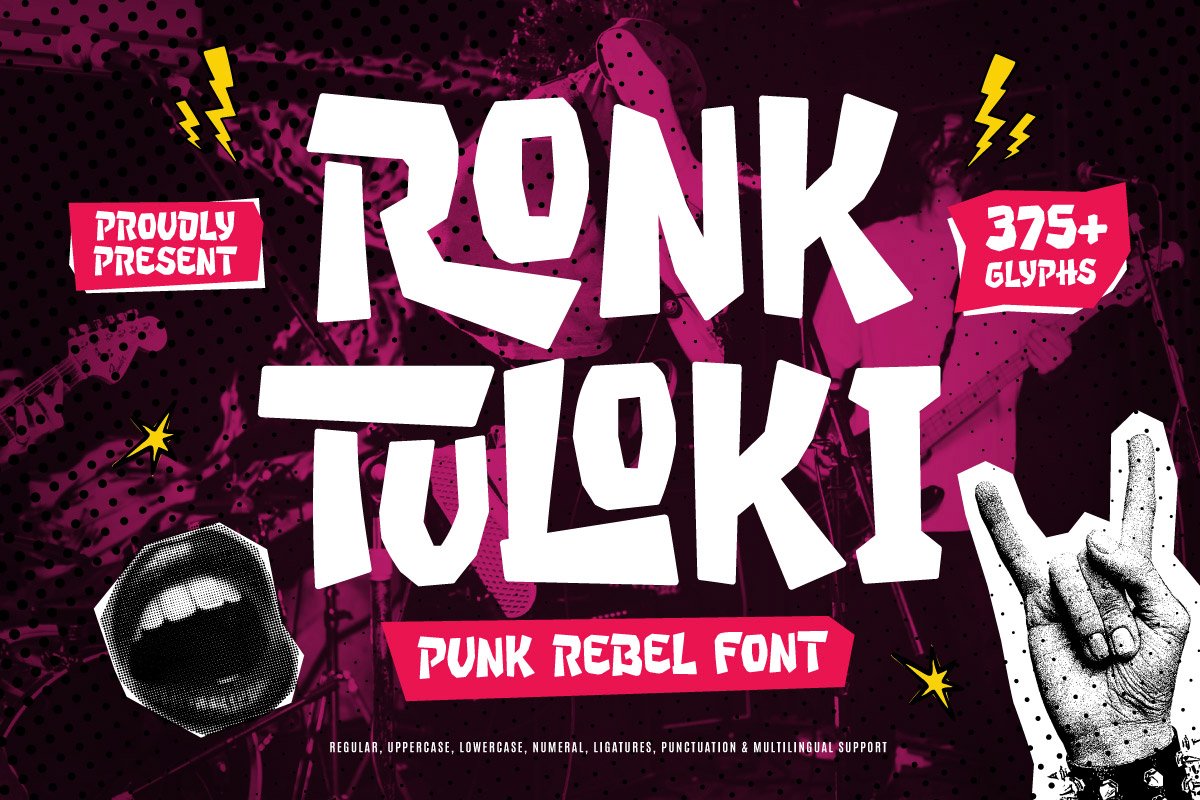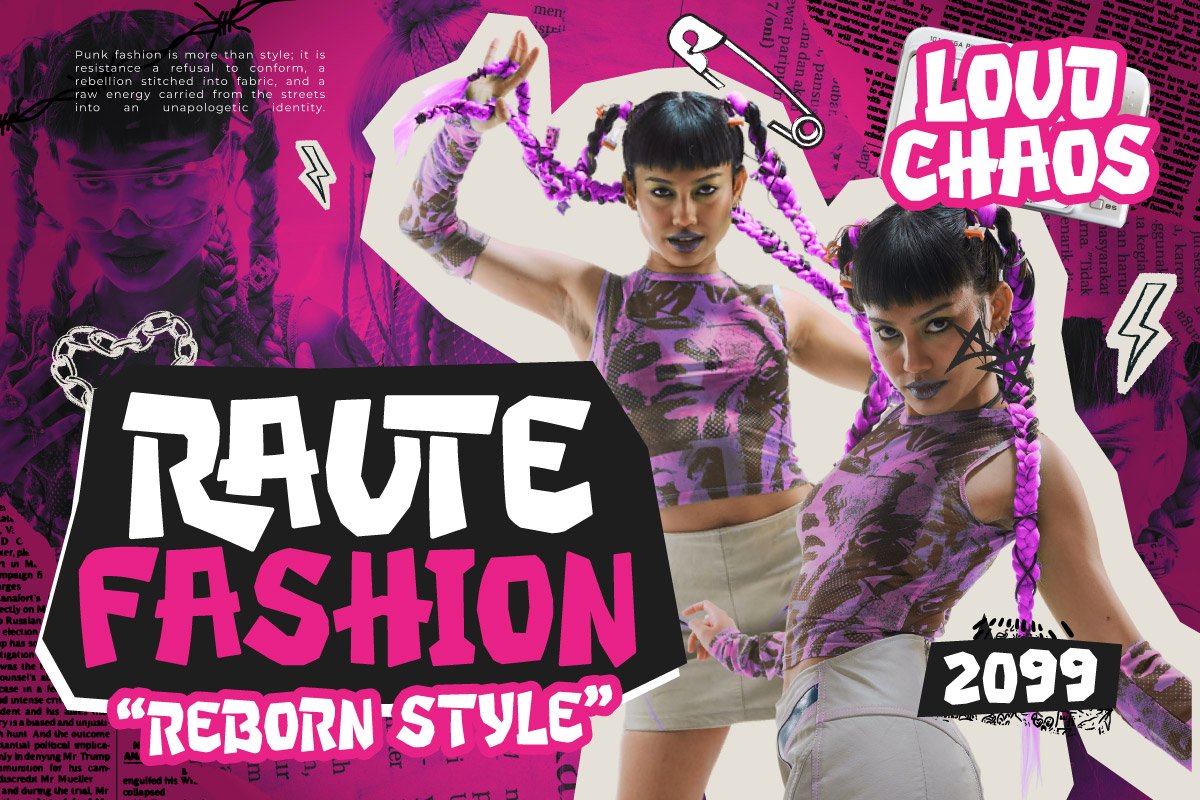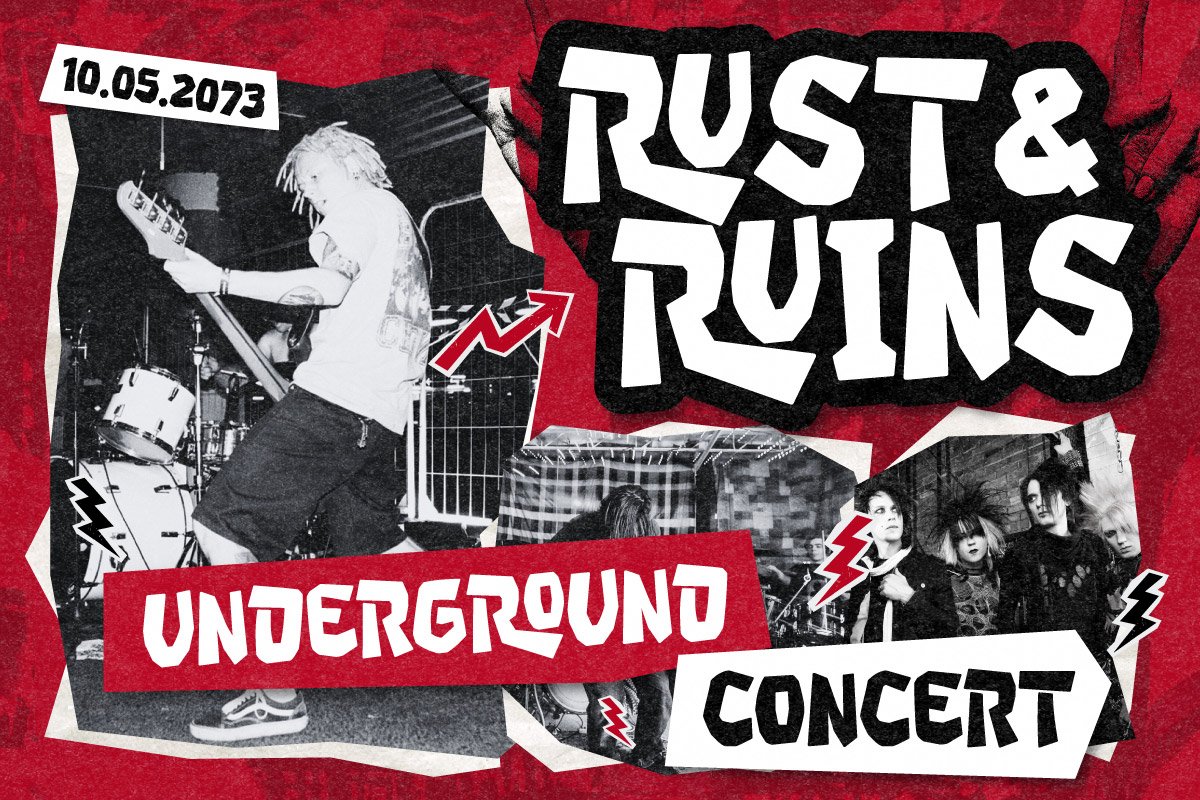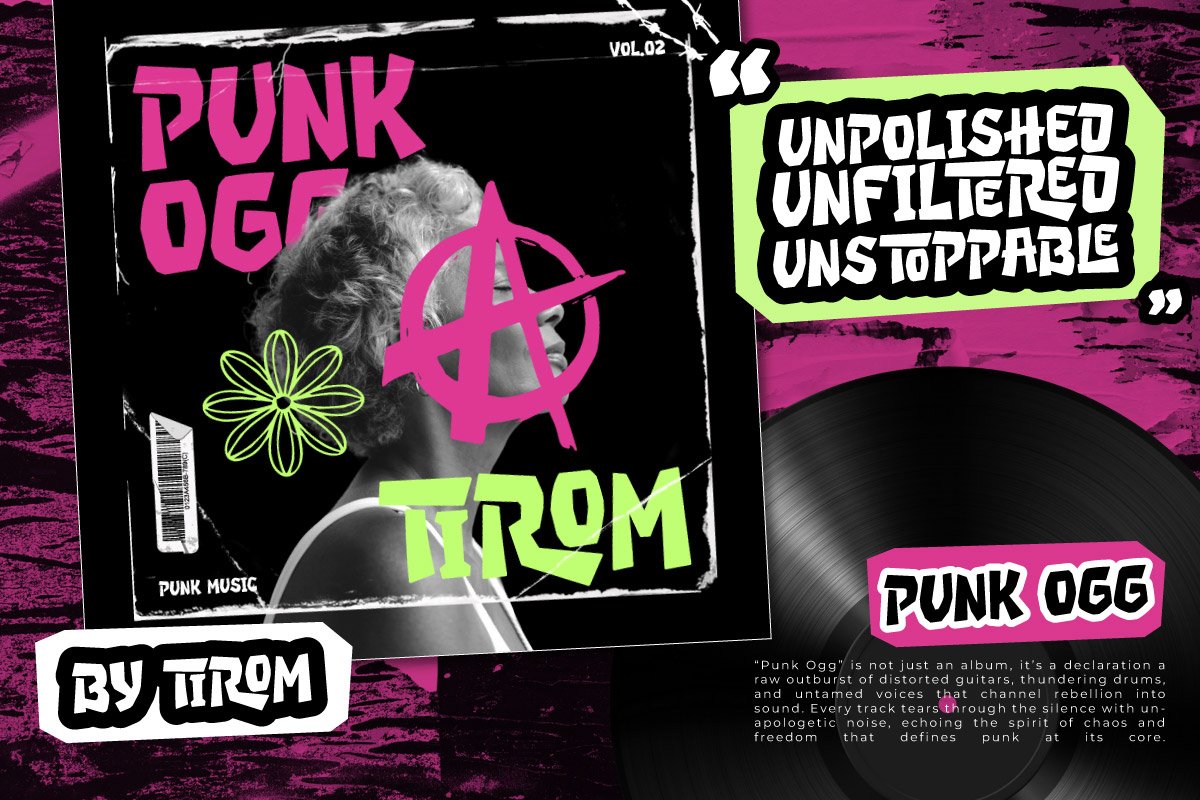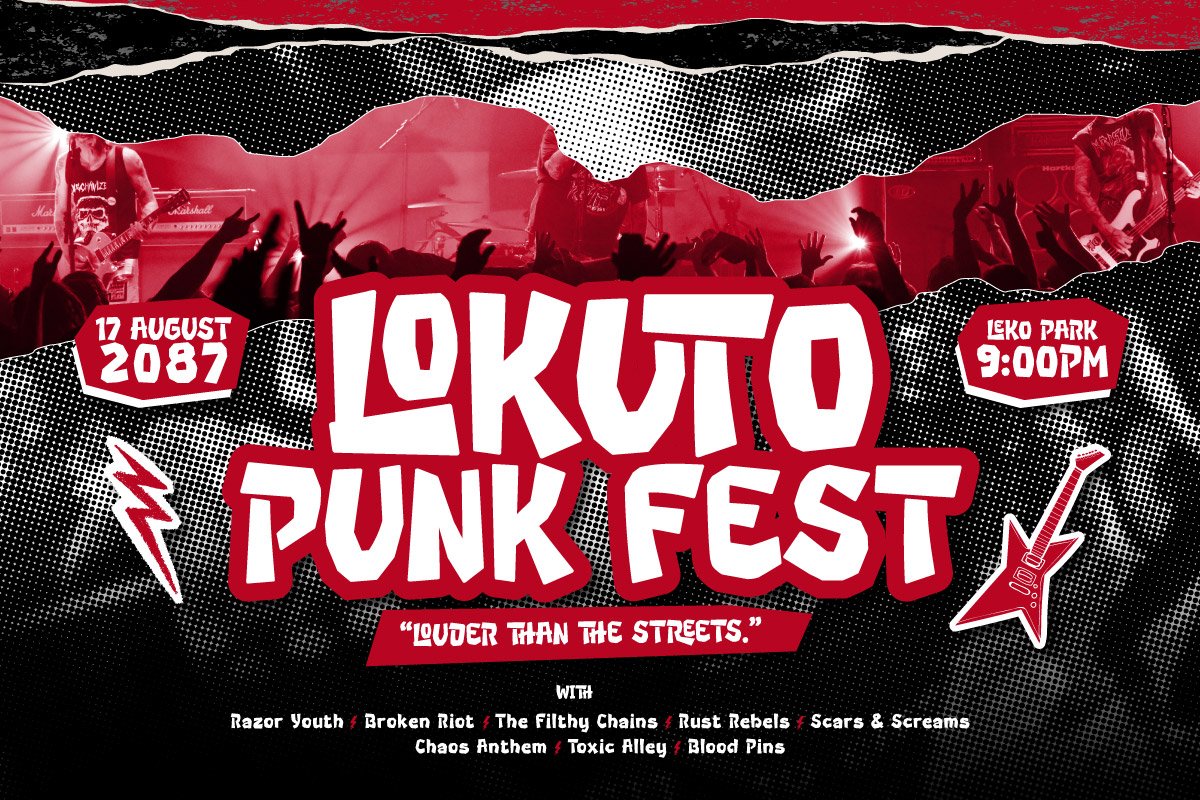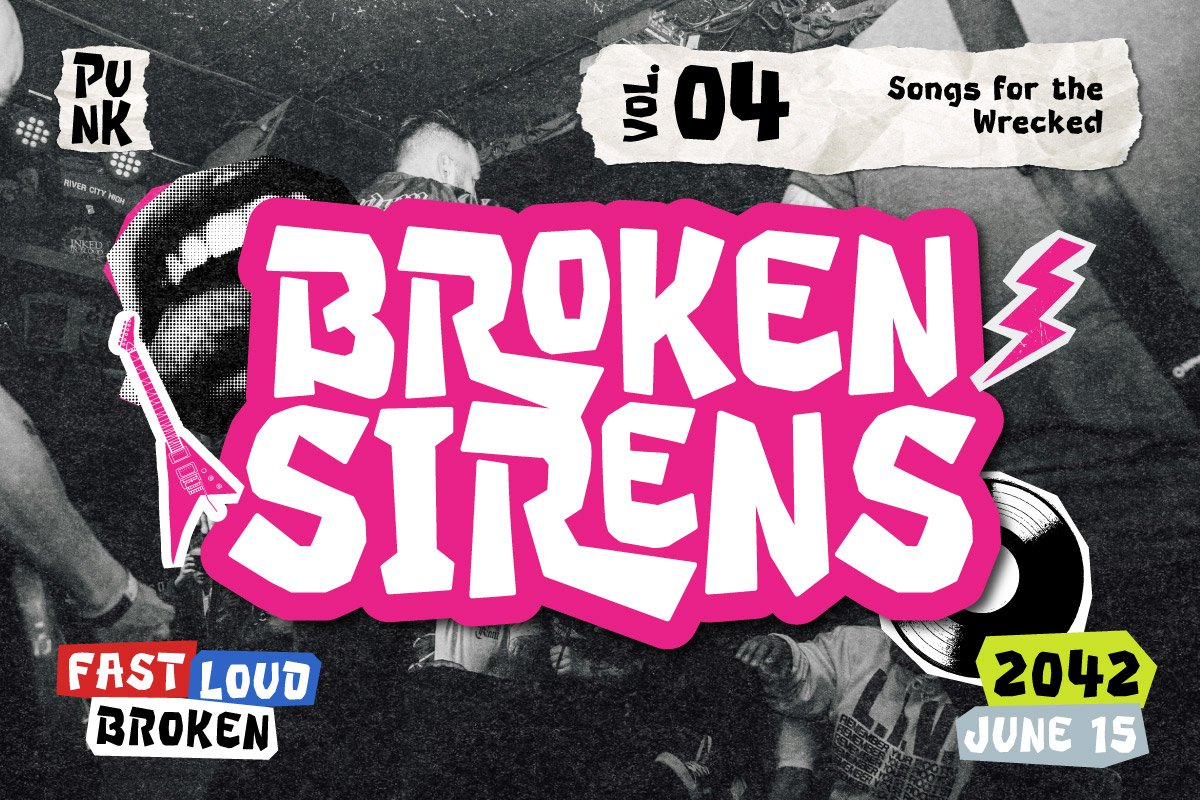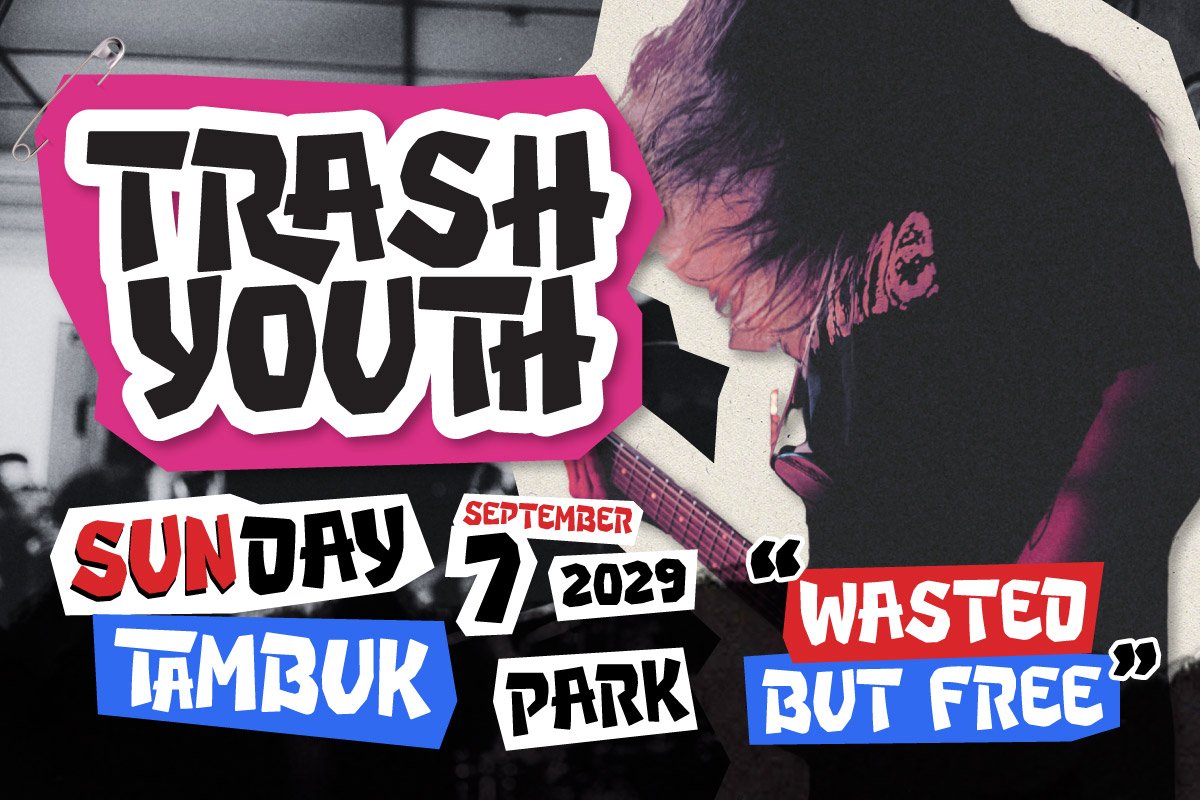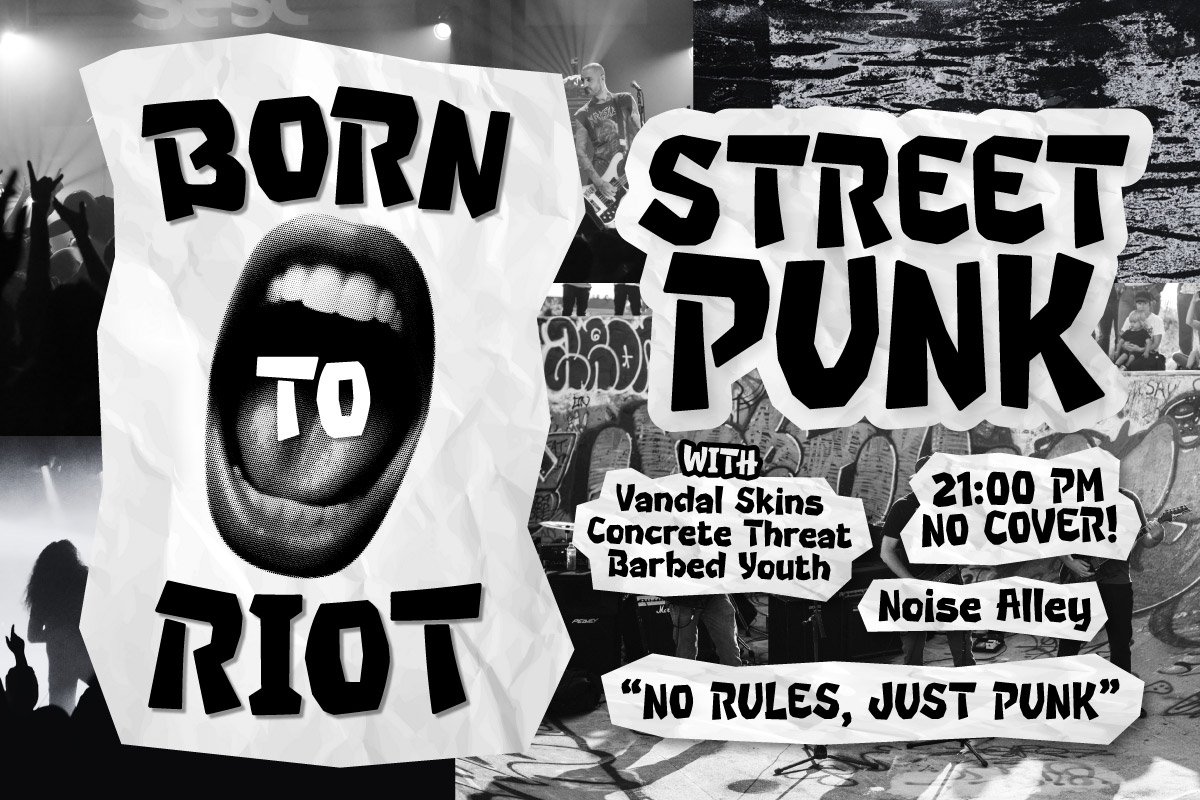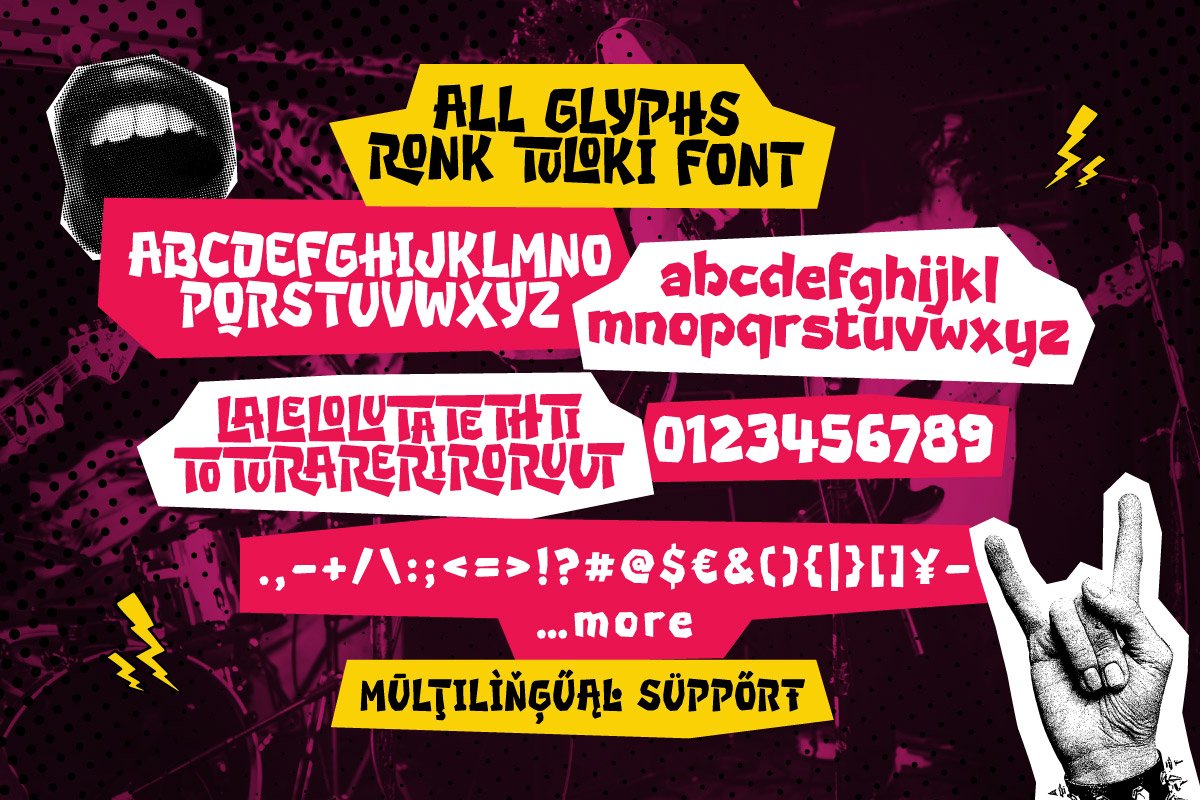
Ronk Tuloki – Rebel Punk
Ronk Tuloki – Rebel Punk Font is a bold and energetic display typeface that captures the raw attitude of punk culture and underground rebellion. Inspired by hand-cut stencils, DIY posters, and rock gig flyers, this font delivers a gritty and expressive look that brings intensity and movement to any design. Each letter feels loud, alive, and ready to break the rules — perfect for visuals that demand attention.
With over 375 glyphs, including uppercase and lowercase letters, numerals, ligatures, punctuation, and full multilingual support, Ronk Tuloki offers both power and versatility. Its uneven, handcrafted shapes create an authentic punk vibe while maintaining readability, making it suitable for both digital and print projects that aim to stand out.
Ronk Tuloki works beautifully for music posters, album covers, zines, flyers, event promotions, or branding that celebrates individuality and raw creative energy. It’s the perfect typeface for designers who want to express rebellion, boldness, and originality through strong, impactful typography.
Multilingual Support, including 85 languages: